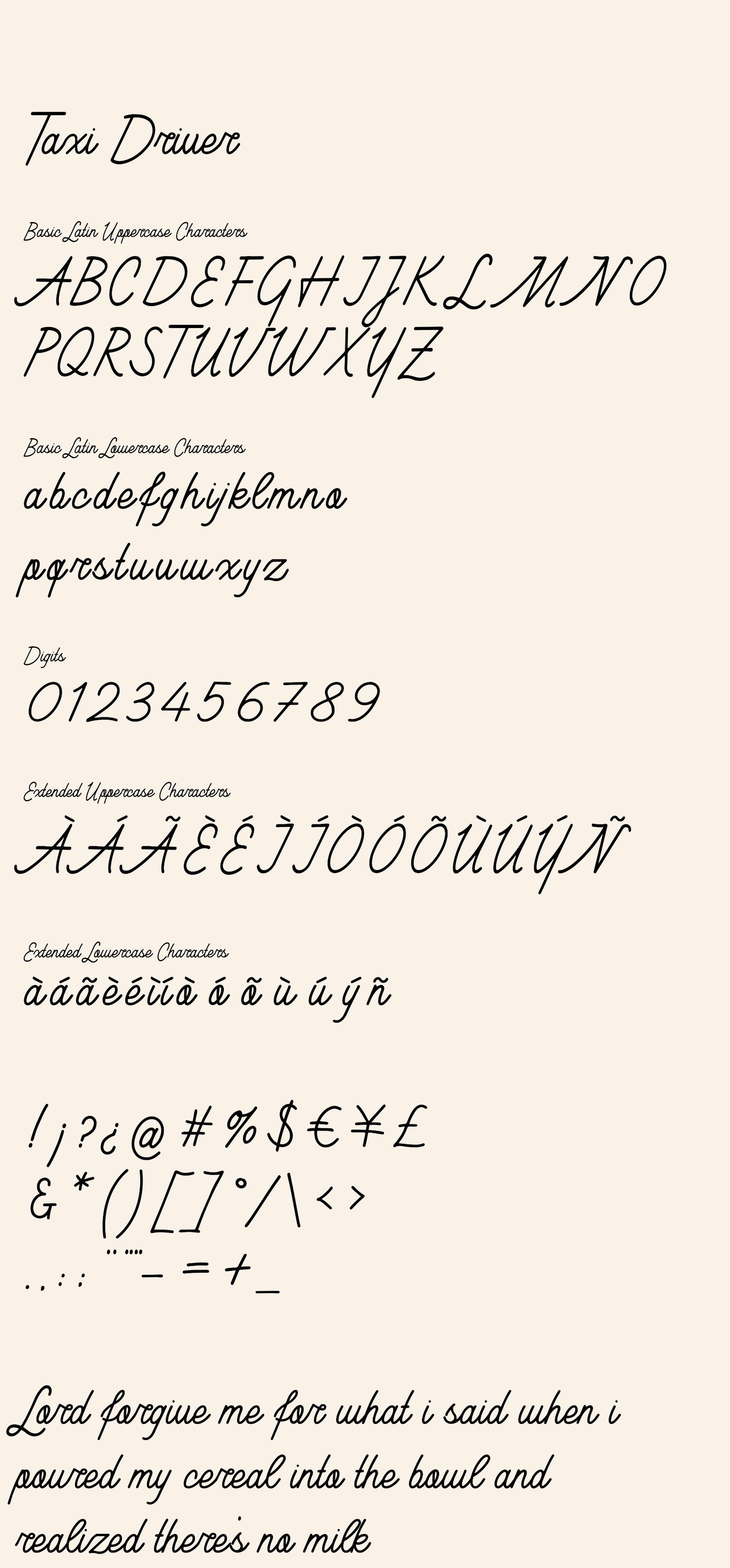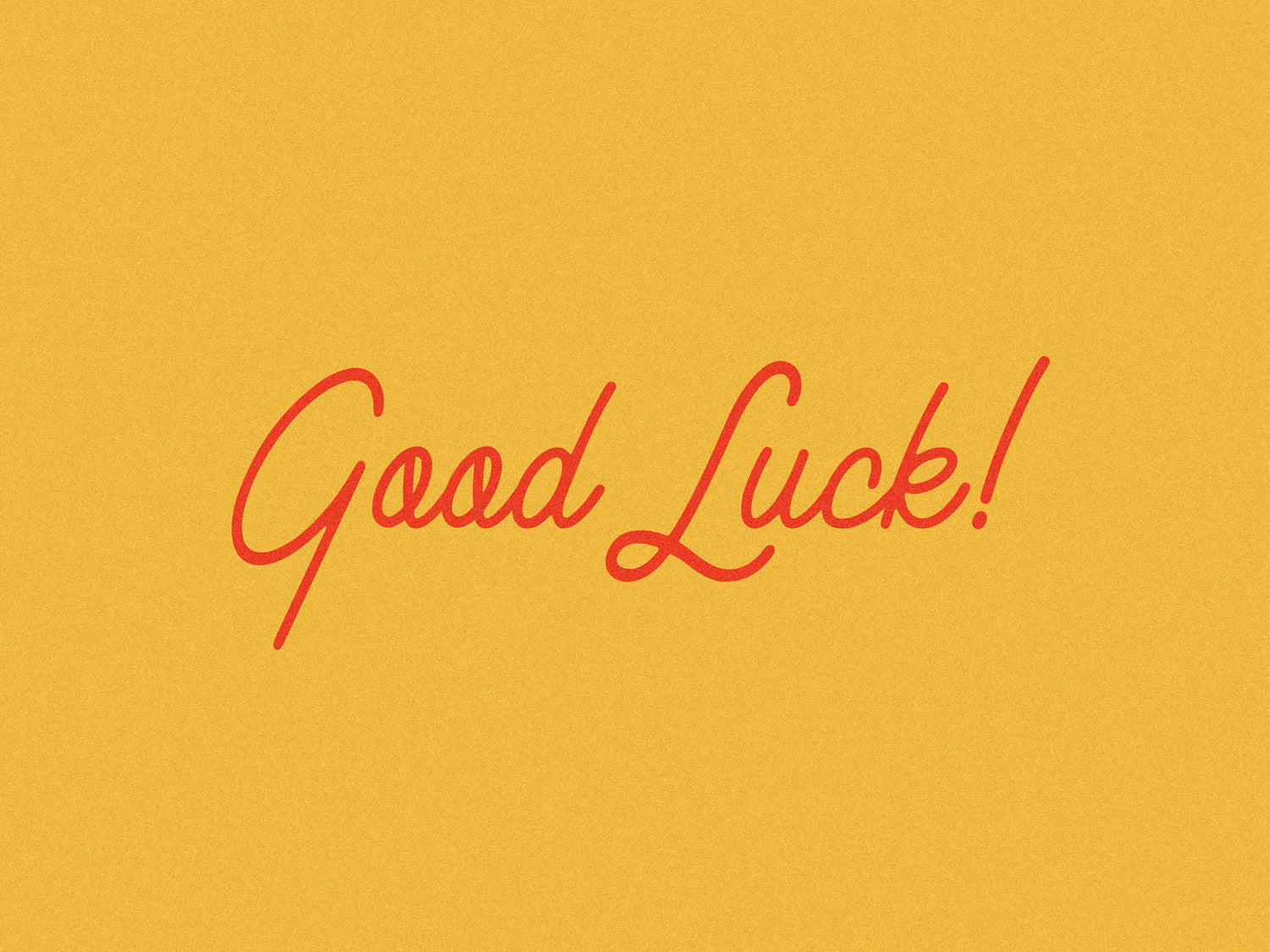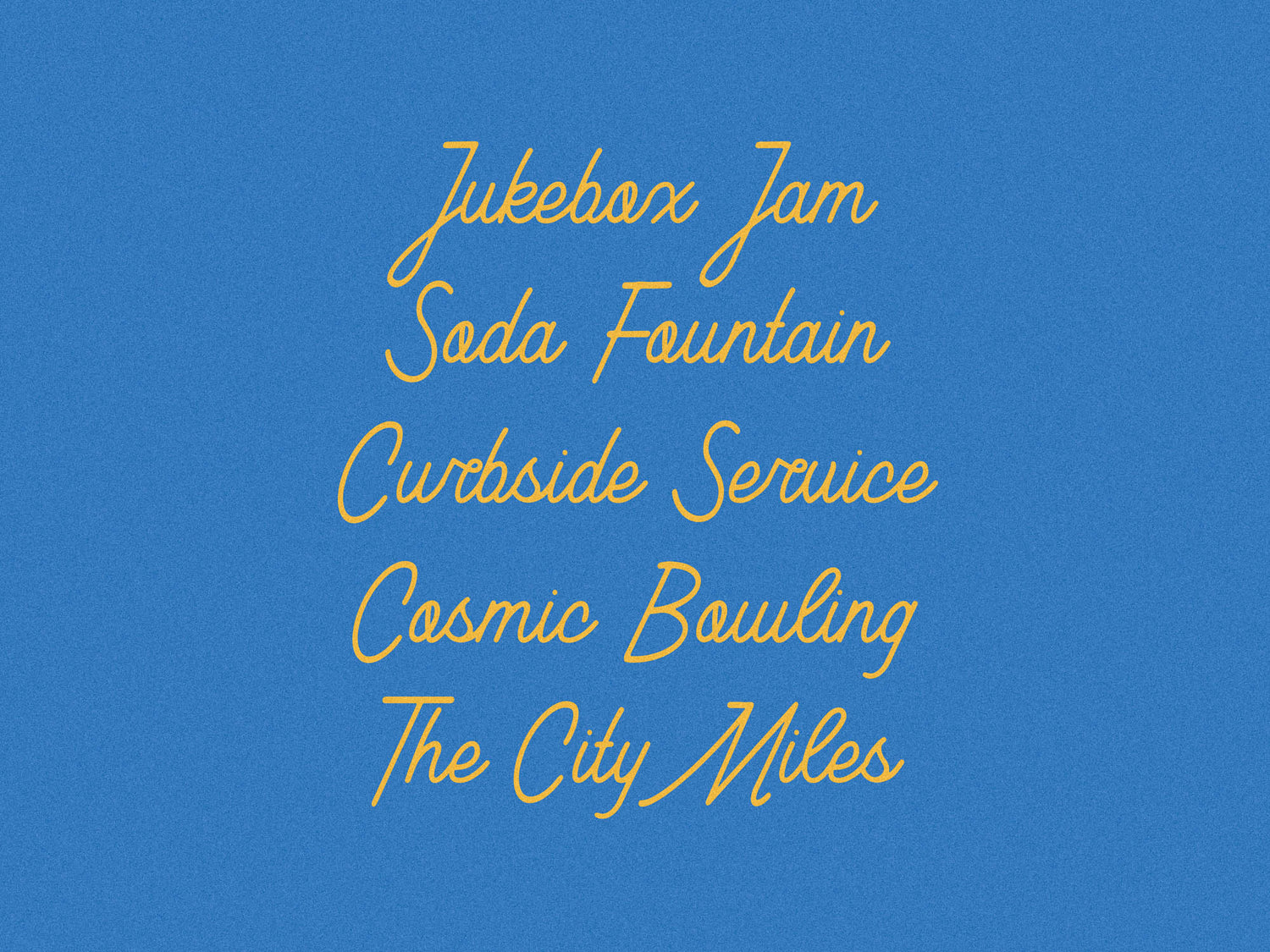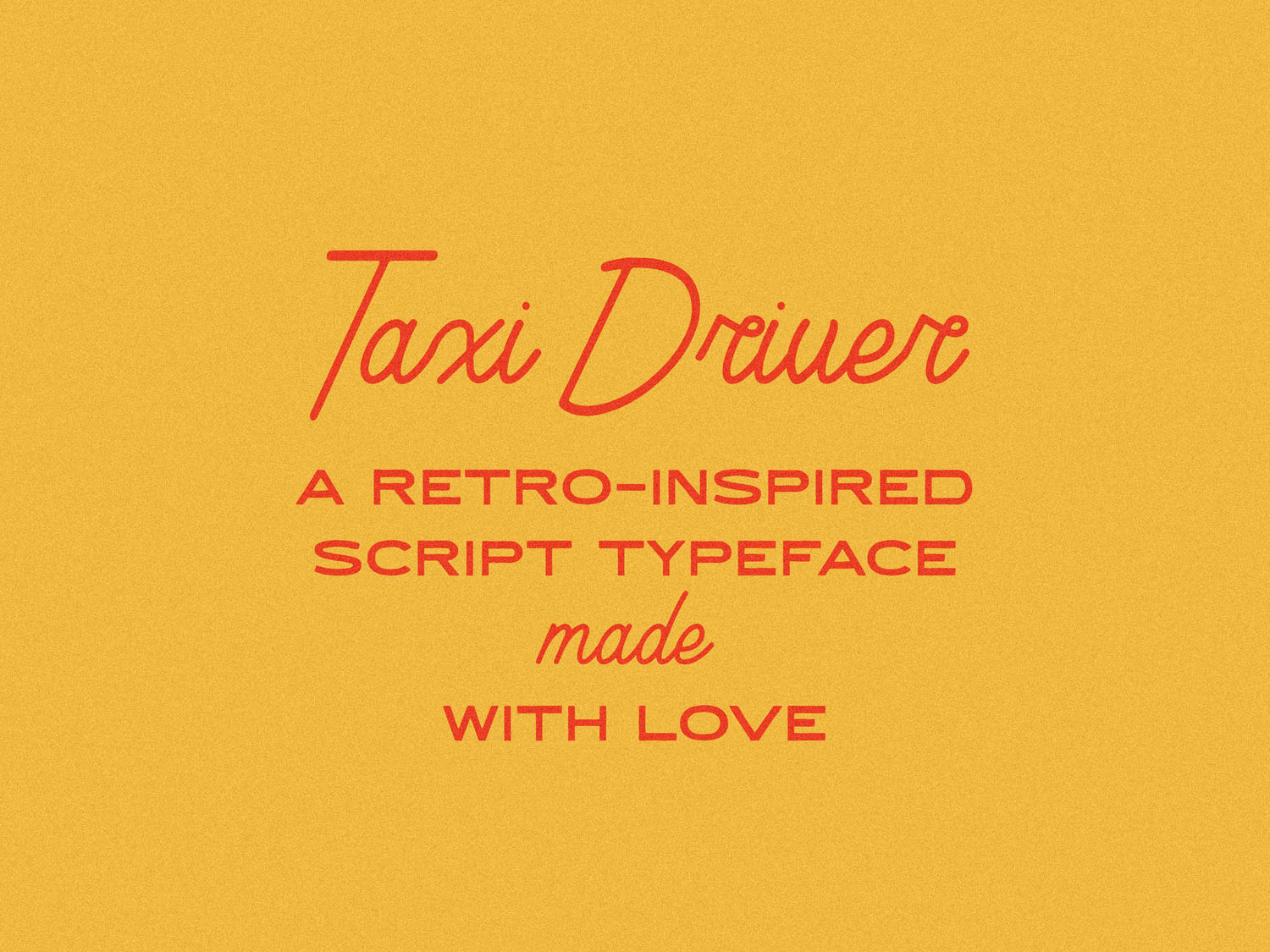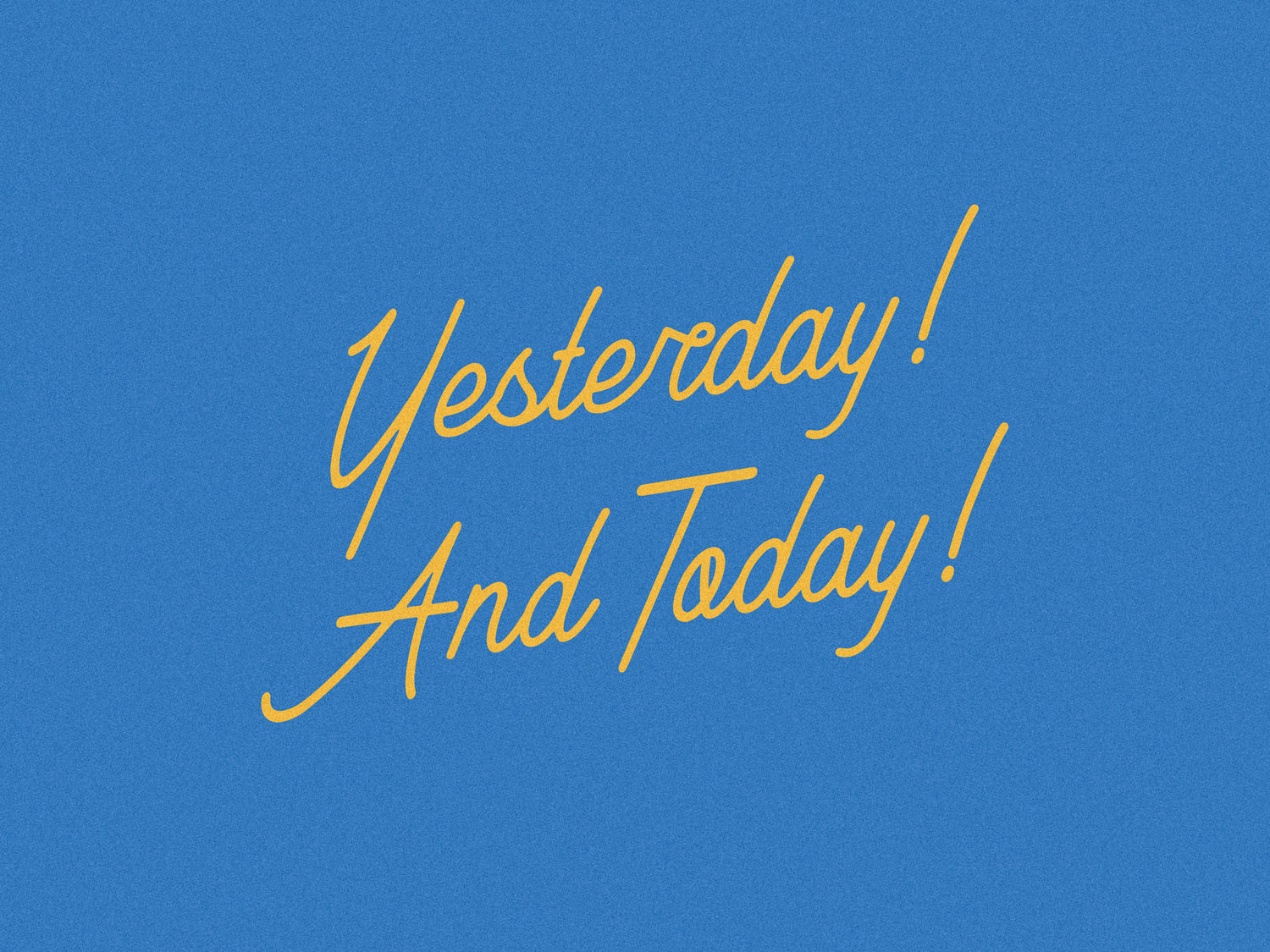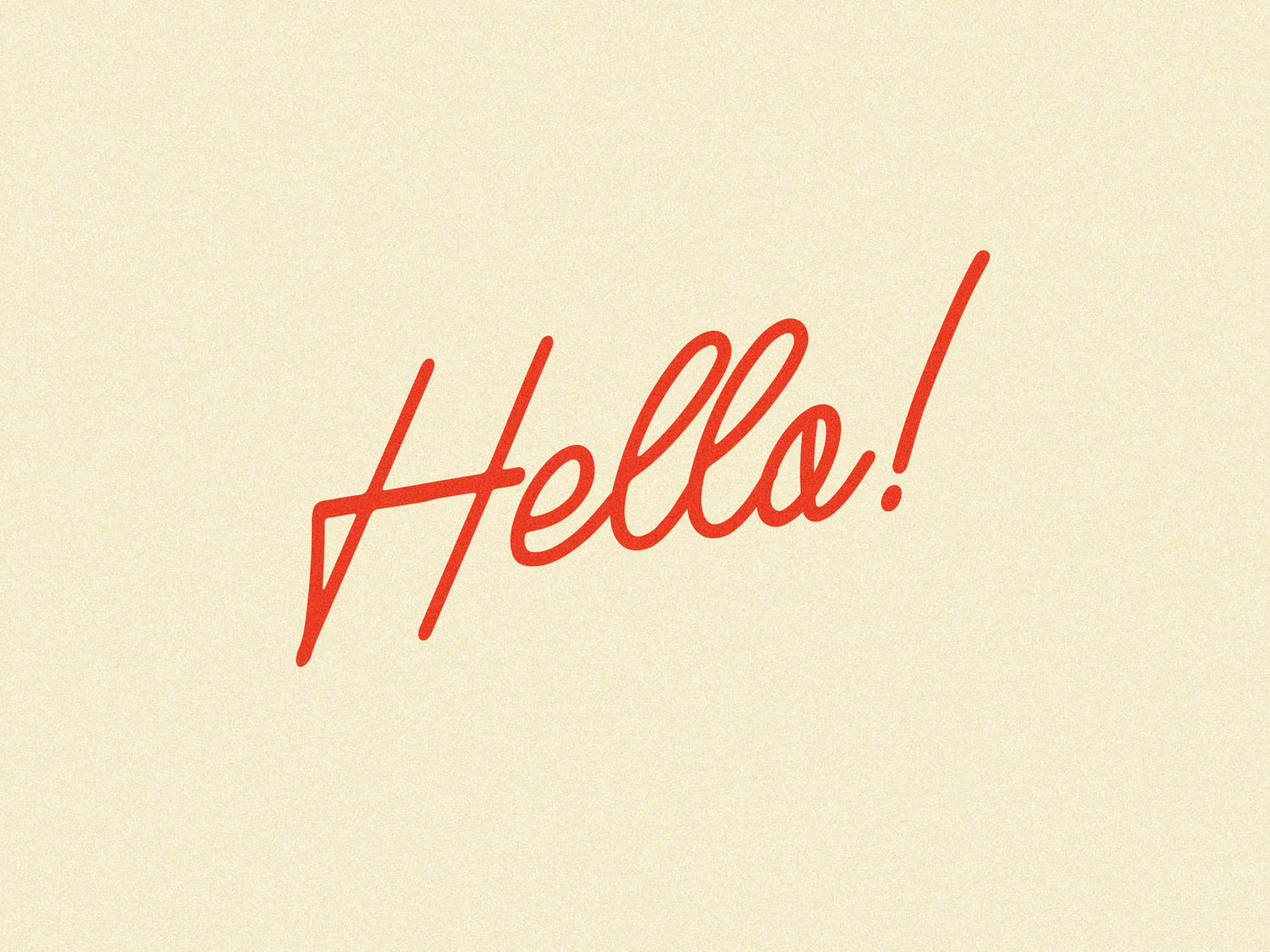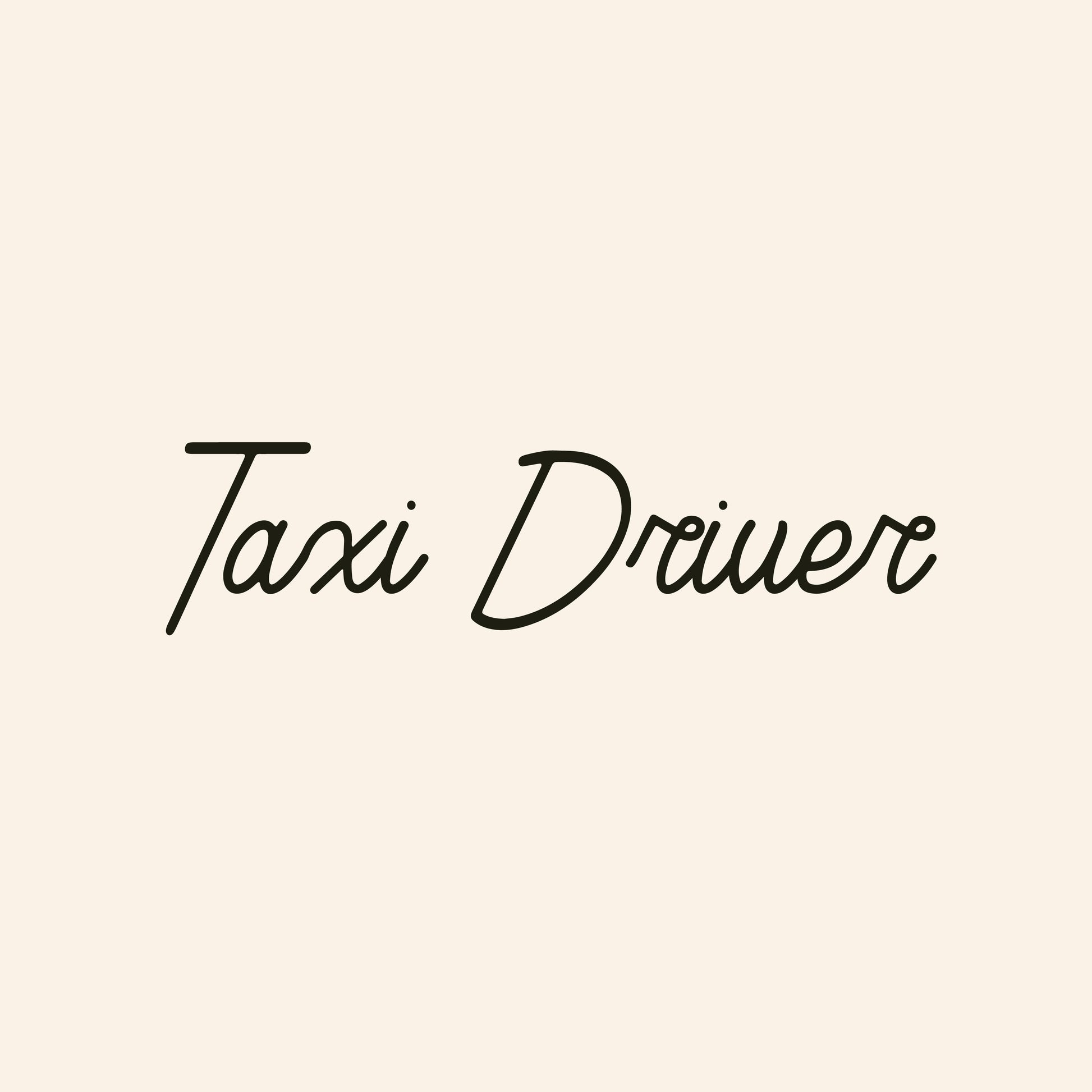
Taxi Driver
Taxi Driver (Two) is back — this time with threaded brows and a fresh tan.
This retro-inspired script keeps things loose, legible, and just refined enough to pass for upscale. Casual enough for me, polished enough for you, and oddly good at pulling its weight across logos, packaging, and menus that pretend to be curated.